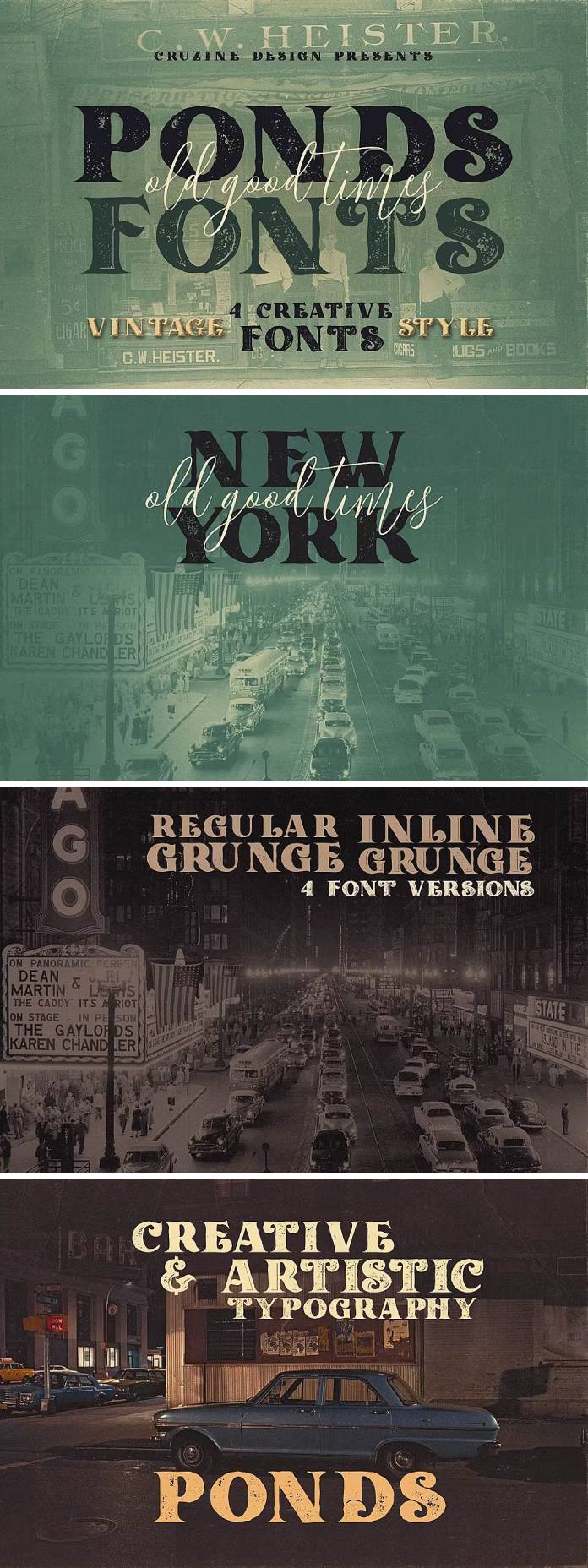
Unleashing Nostalgia in Your Design with the Ponds Vintage Typeface.
In graphic design, where modernity often takes center stage, there’s an enduring allure to the charm of yesteryear. The Ponds Vintage Typeface by Cruzine invites designers to embark on a journey through time, rediscovering the beauty of retro, vintage, and grunge aesthetics. With its unique blend of character and nostalgia, this display font is poised to become a timeless classic in your design toolkit.
Exploring Ponds Vintage:
The Ponds Vintage Typeface is more than just a set of characters; it’s a gateway to a bygone era. Comprising four distinct font files – regular, grunge, inline, and grunge inline – this versatile typeface empowers designers to bring a touch of vintage authenticity to their projects.
Regular & Grunge:
The regular font exudes a clean and classic vibe, perfect for projects that call for a touch of elegance. On the other hand, the grunge variant adds a weathered, worn-in character, injecting a sense of history into your designs. Whether you’re working on a retro poster or a vintage-inspired logo, these options provide the flexibility needed to convey your intended mood.
Inline & Grunge Inline:
For designs that demand a bit more flair, the inline and grunge inline fonts are at your service. The inline style offers a sophisticated, outlined look, ideal for emphasizing specific elements or creating eye-catching headlines. On the flip side, the grunge inline font takes it a step further, combining the charm of yesteryear with a hint of rebellion. It’s the perfect choice for projects that seek to capture the rebellious spirit of the past.
Versatility in Every Project:
Ponds Vintage Typeface is not limited by era or theme – it’s a chameleon that seamlessly adapts to a variety of design projects. From packaging to branding, posters to social media graphics, the font’s diverse styles ensure that your creativity knows no bounds. Imagine a whiskey label that whispers of prohibition-era secrets or a concert poster that channels the rebellious energy of a rock ‘n’ roll gig – Ponds Vintage can breathe life into any concept.
The Ponds Vintage Typeface is not merely a collection of letters; it’s a vessel that transports your designs to a different time. Something is enchanting about looking back in a world that often races toward the future. Ponds Vintage not only captures the essence of retro, vintage, and grunge styles but also invites designers to create a visual dialogue with the past. So, embark on a journey with Ponds Vintage, and let your creativity flow through the river of time.